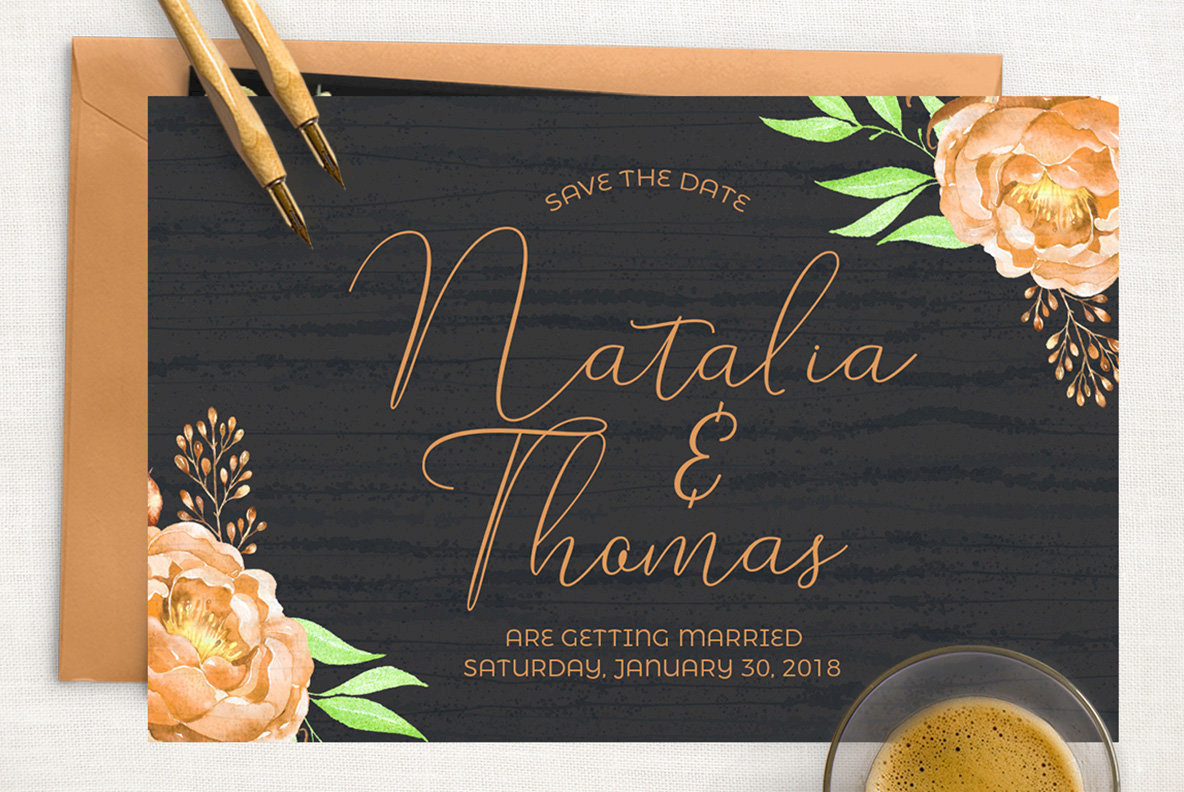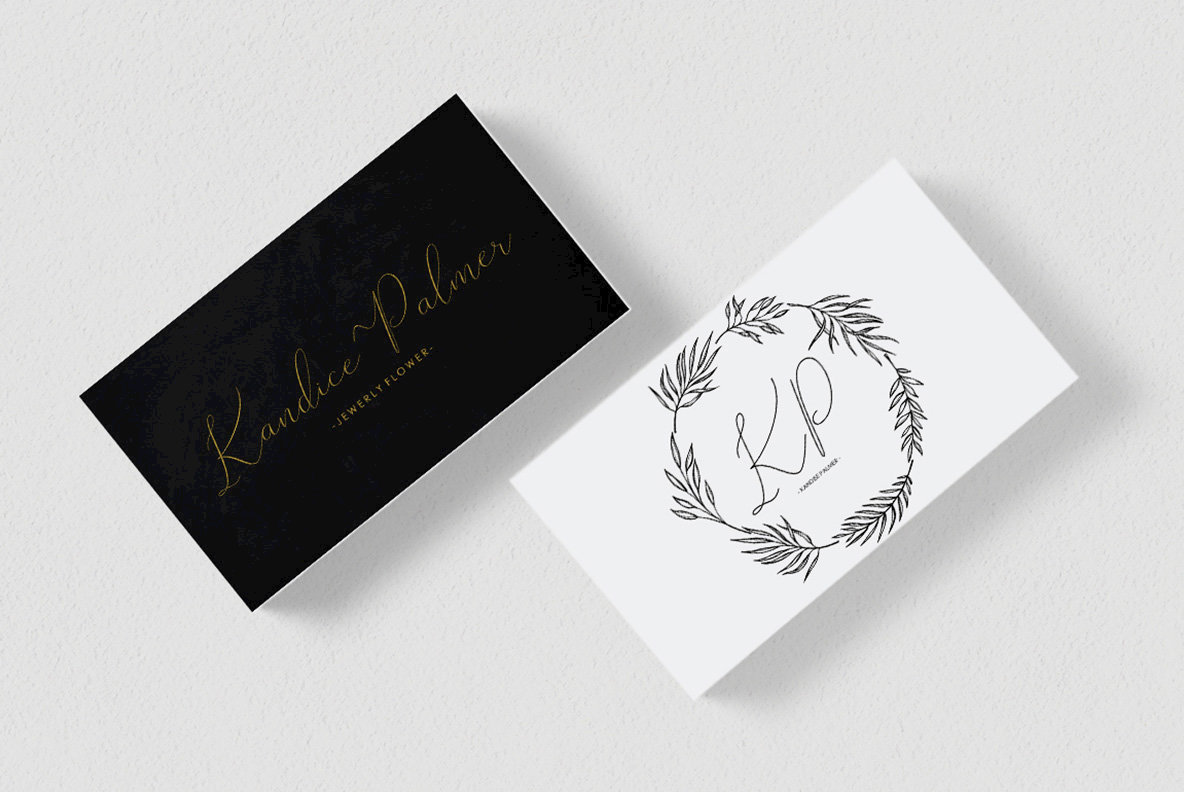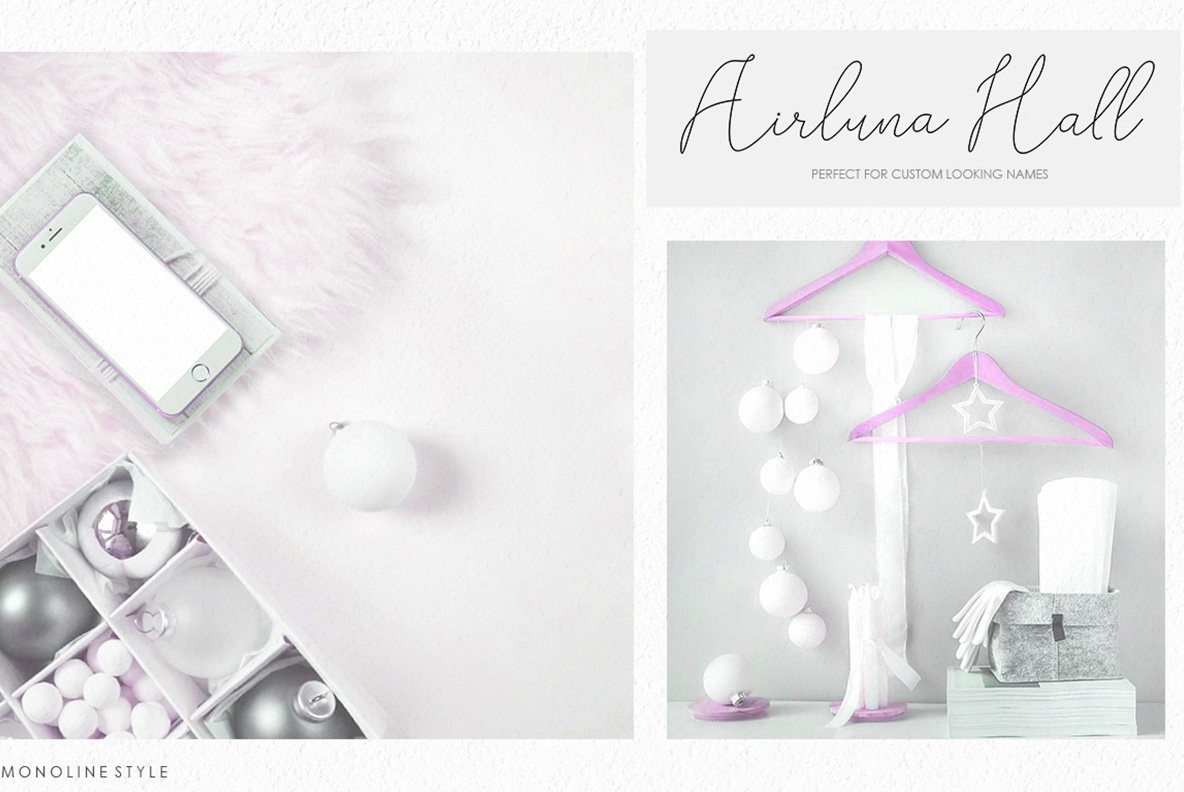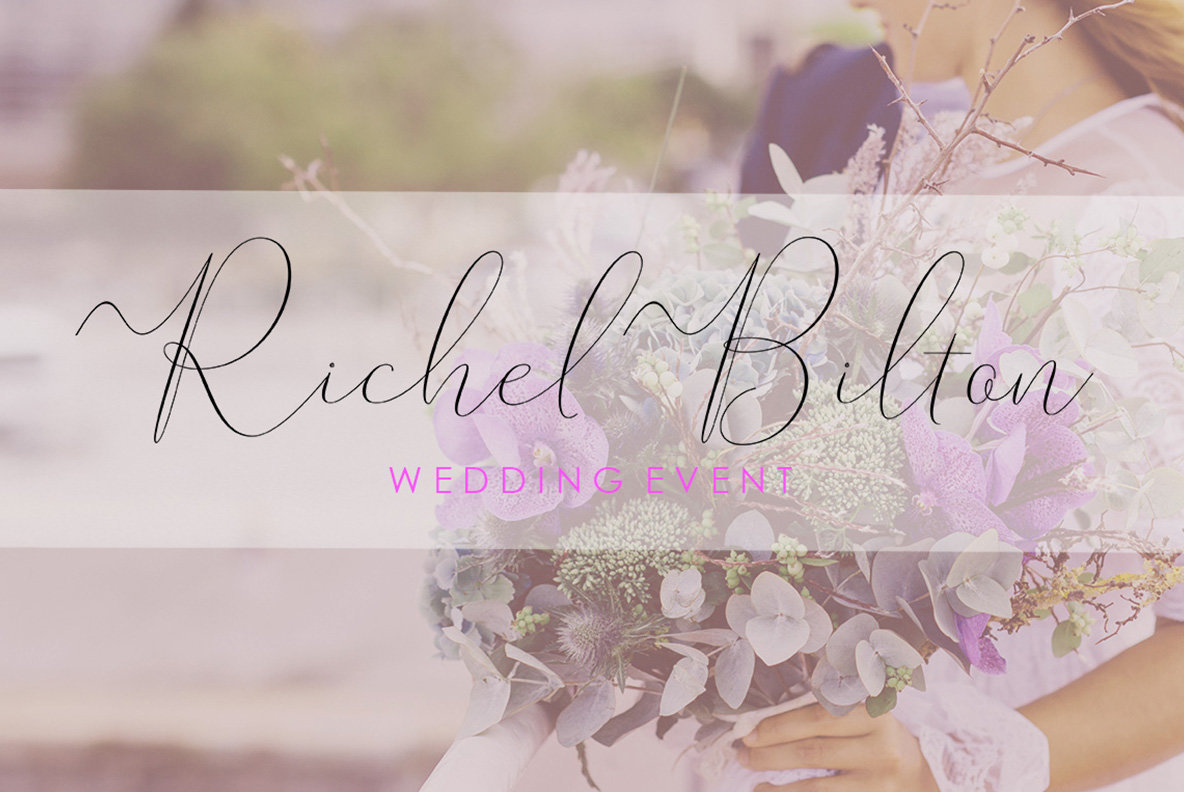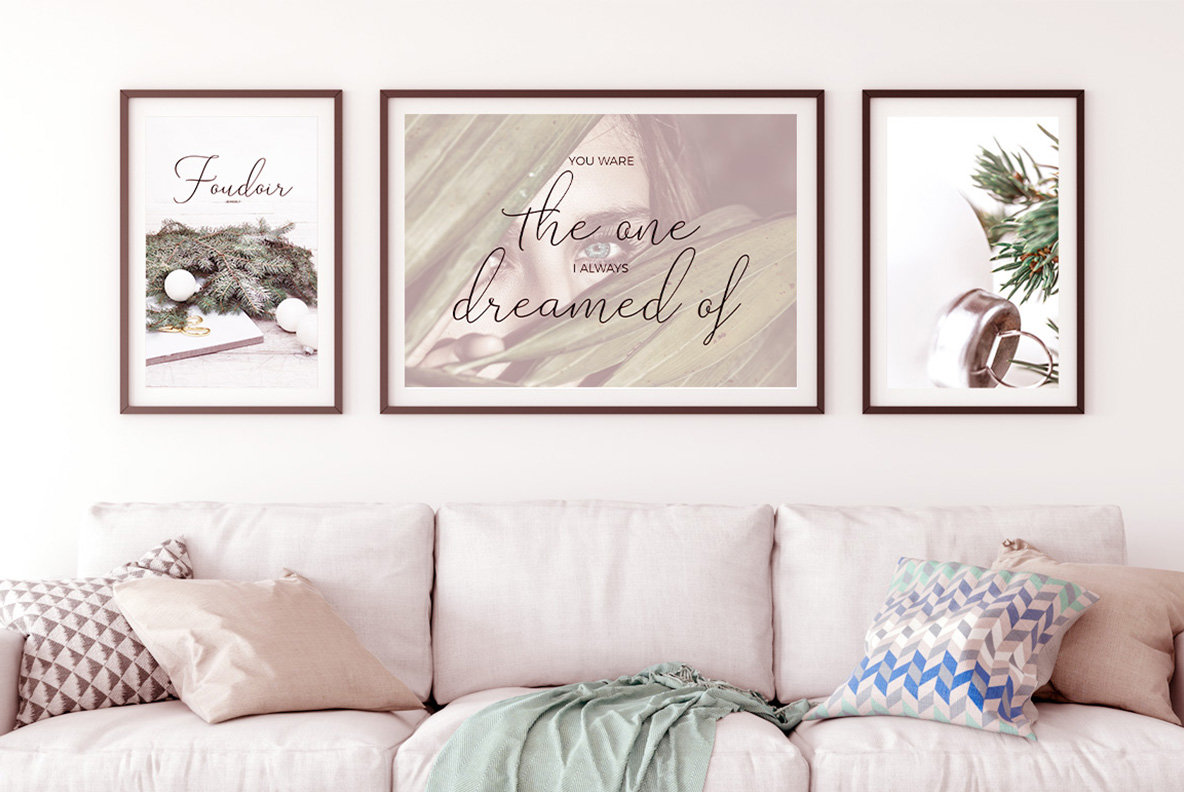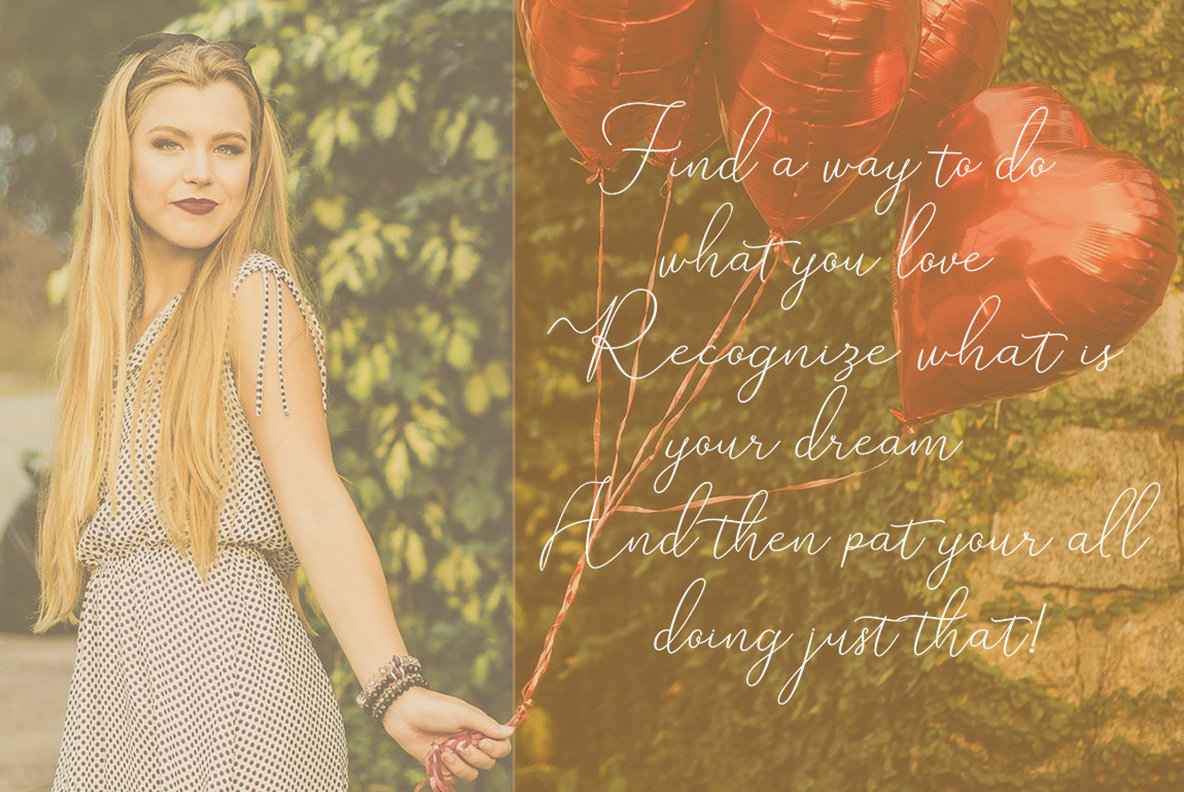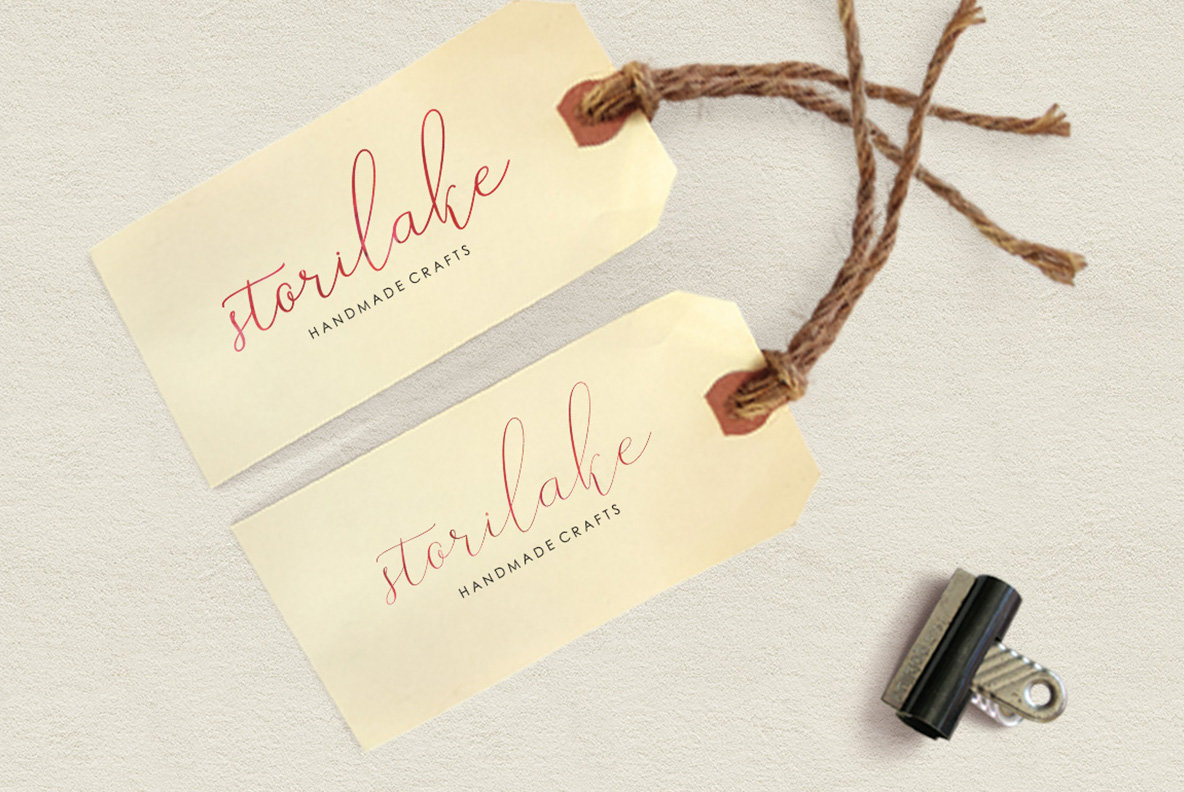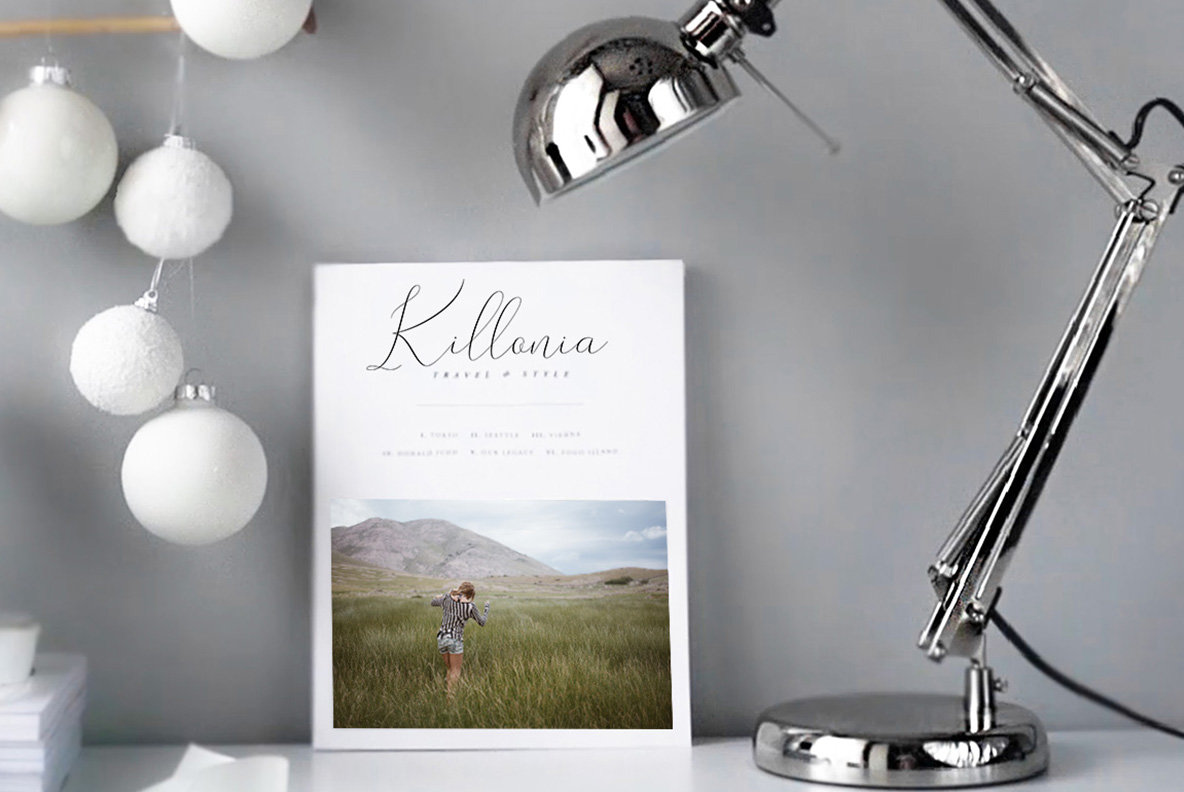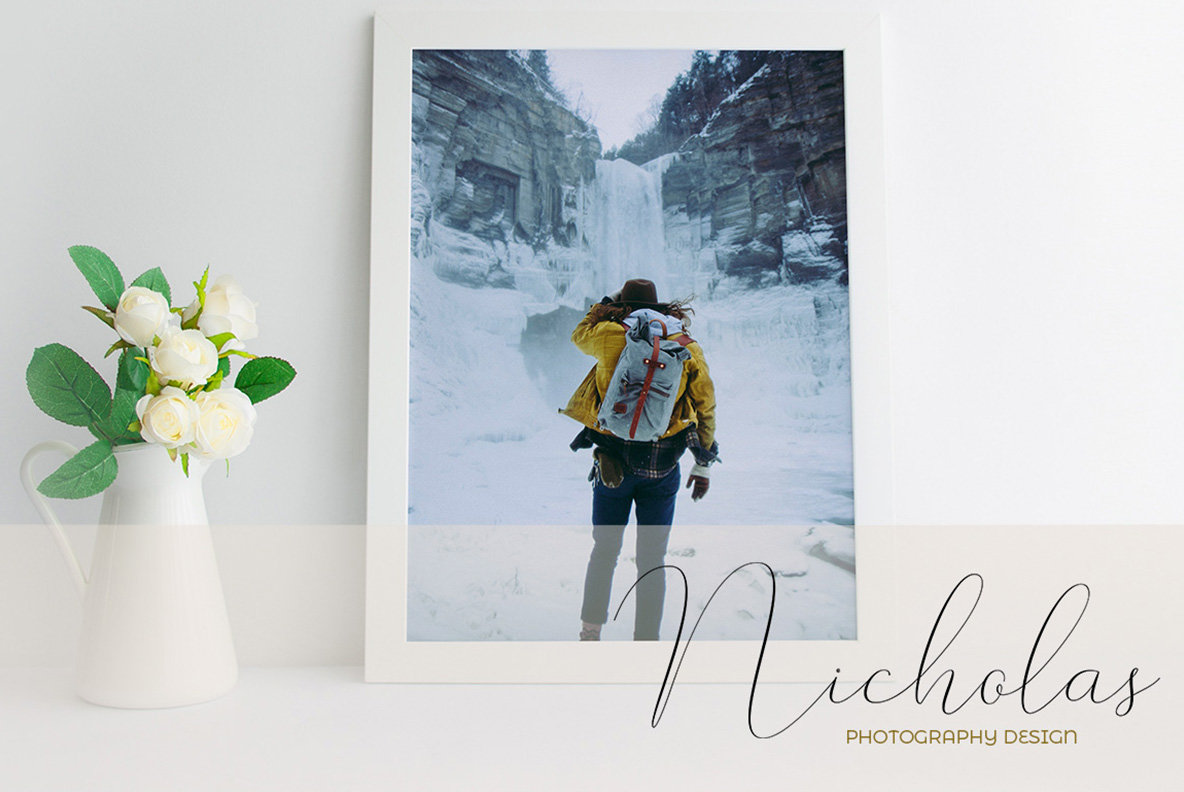
Rishella Signature Font
The Rishella Signature Font by Akmal Yusar offers a modern take on script typography, characterized by its elegant, casual, and lovely style. This font is designed with versatility in mind and includes a handy set of OpenType stylistics. It is ideal for creating logos, greetings, branding, quotes, prints, invitations, and more. Its script design is complemented by beautiful ligatures and alternates, bringing sophistication to any project.Rishella Signature Font: Modern Elegance in Script